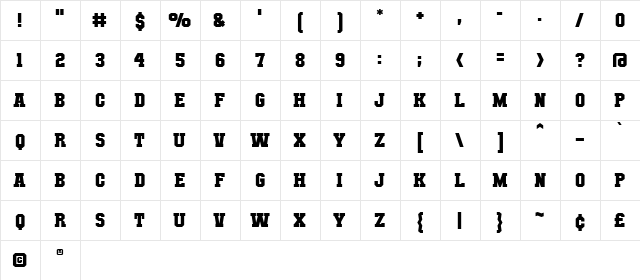
Mutant Academy BB Regular Font Preview
Mutant Academy BB Regular
Mutant Academy BB Regular Font Details
| Foundry | Nate Piekos. Blambot.com |
| Designer | Nate Piekos |
Design Context for Mutant Academy BB Typeface
Mutant Academy BB offers clean, dependable letterforms without strong stylistic allegiance, making it a practical choice for designers who need flexibility.